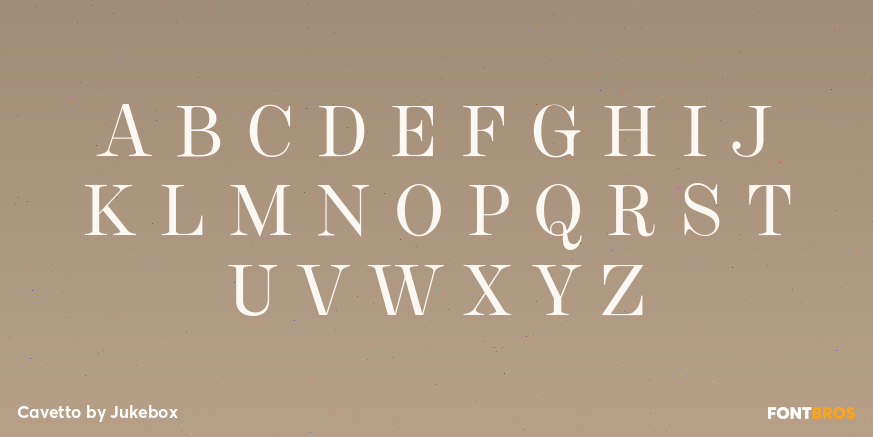
Cavetto
Font Family by Jukebox
Cavetto is an elegant serif family with a clear Bodoni-style influence and a distinctly historical feel. Its high-contrast shapes and refined structure give it a polished, decorative presence that feels both classic and expressive.
With 2 styles included—Regular and Italic—this family offers a simple, versatile set for display-focused work. It’s a strong fit for branding, packaging, editorial accents, invitations, posters, and other designs that call for a graceful serif with a more stylized, old-world character.
Created by Jukebox, Cavetto brings together elegance and personality in a compact family that can shift from formal to theatrical depending on how it’s used.